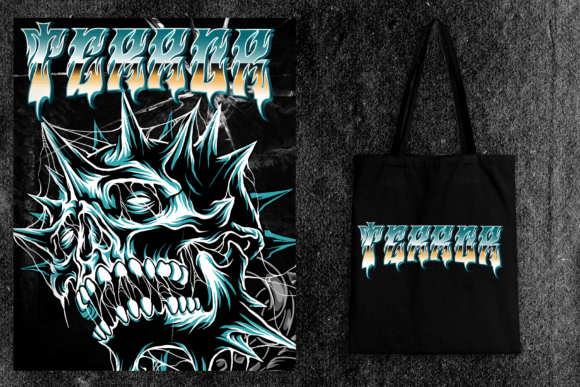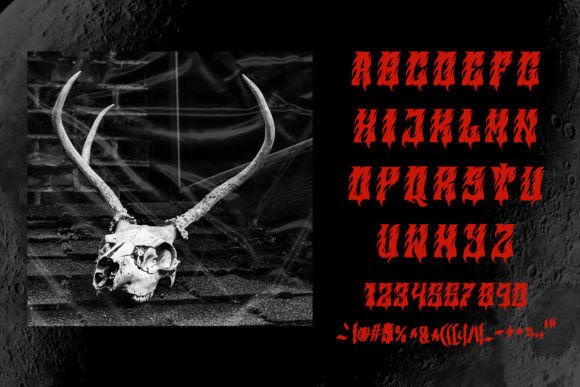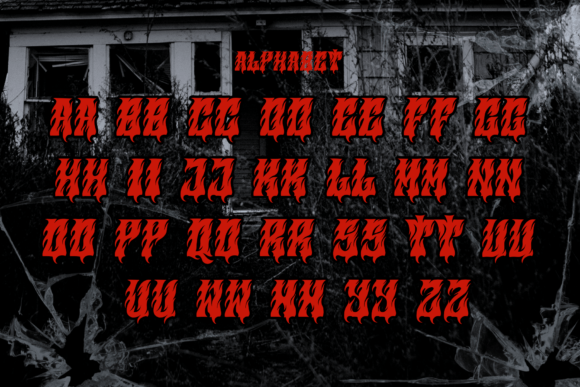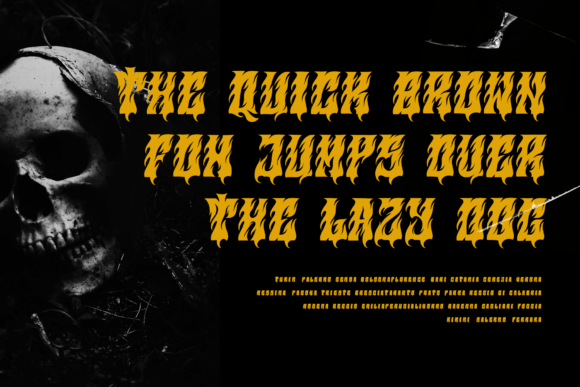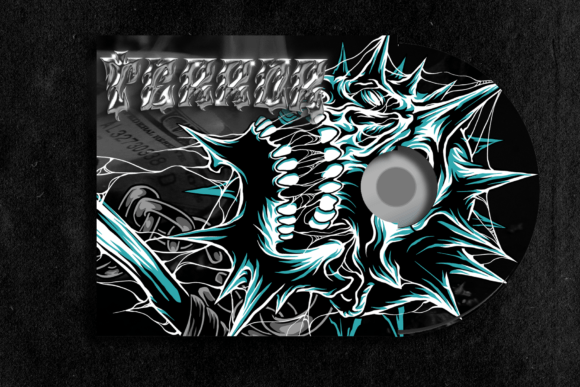
The Power of Destruc Font: Unleashing Creativity in Blackletter Typography
I still remember the frustration of working on a death metal band’s logo design, scouring the internet for the perfect blackletter font that would make their brand stand out. The designs I found were either too ornate or too dull, and I was on the verge of giving up. That’s when I stumbled upon Destruc Font, a game-changing blackletter font that exceeded my expectations. In this article, I’ll share my experience with Destruc Font, its features, and how to make the most of it in various design platforms.
An Honest Review of Destruc Font
What I Love About Destruc Font
- ✨ Highly detailed and distinct blackletter design that commands attention
- ✅ Perfect for creating exquisite death metal designs, tattoo business branding, logos, and vintage designs
- 💡 Supports OpenType features, glyphs, and stylistic alternates for added creative flexibility
- 🎨 Versatile and can be used for a wide range of design projects, from bold statements to subtle typography
While Destruc Font is an exceptional font, there are a few minor limitations to consider:
- 🤔 May require some kerning adjustments for optimal spacing and readability
- ⚠️ Not suitable for body text or long-form content due to its bold and ornate design
The Backstory of Destruc Font
Destruc Font was created by a talented type designer who drew inspiration from traditional blackletter typography and modern design trends. The font’s intricate details and bold design make it perfect for creating striking designs that demand attention.
| Font Name | Destruc Font |
| Author | Dansdesign |
Q: What is Destruc Font best used for?
A: Destruc Font is best used for creating bold and striking designs, such as logos, posters, and branding materials for death metal bands, tattoo businesses, and vintage-inspired designs.
Q: Is Destruc Font suitable for body text?
A: No, Destruc Font is not suitable for body text due to its bold and ornate design. It’s best used for headlines, titles, and short-form content.